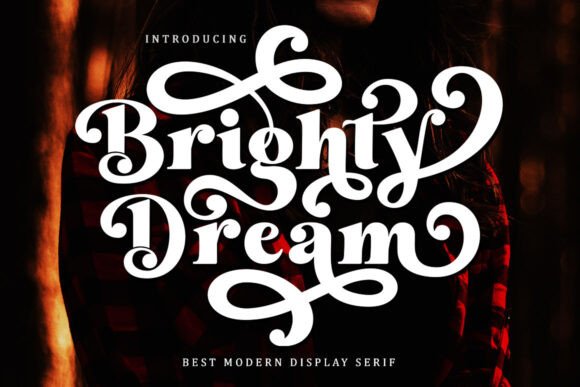
Introducing Brighty Dream Font: Elevate Your Designs with Elegance and Playfulness
In the world of typography, a font can make or break a design. A well-chosen font can elevate your project, adding a touch of sophistication, elegance, and personality. If you’re looking for a typeface that embodies these qualities, look no further than Brighty Dream Font. This stunning serif typeface is designed to make your designs stand out, offering a perfect blend of regular and condensed styles, alternates, and ligatures.
What Makes Brighty Dream Font Special?
Brighty Dream Font is a versatile typeface that boasts a unique combination of characteristics, making it an excellent choice for various design projects. Here are some of its standout features:
- Serif Elegance: Brighty Dream Font is a serif typeface, which means it features small lines or flourishes at the ends of the letters. This adds a level of sophistication and elegance to your designs, making it perfect for projects that require a touch of refinement.
- Regular and Condensed Styles: The font comes in both regular and condensed styles, allowing you to choose the perfect variation for your design. The regular style is great for large headings, while the condensed style is ideal for smaller text or when you need to fit more content in a limited space.
- Alternates and Ligatures: Brighty Dream Font includes alternates and ligatures, which add a playful touch to your designs. Alternates provide alternative forms of letters, while ligatures combine two or more letters into a single glyph, creating a unique and artistic look.
Perfect for Pop Art Retro Themes and More
Brighty Dream Font is particularly well-suited for pop art retro themes, adding a nostalgic touch to your designs. The font’s elegant and playful characteristics make it an excellent choice for:
- Posters and Flyers: Create eye-catching posters and flyers with Brighty Dream Font, adding a touch of sophistication and playfulness to your designs.
- Logos and Branding: Use Brighty Dream Font to create a unique and memorable logo for your brand, setting you apart from the competition.
- Packaging and Advertising: Add a touch of elegance and playfulness to your packaging and advertising materials with Brighty Dream Font.
Why Choose Brighty Dream Font?
With so many fonts available, why choose Brighty Dream Font? Here are just a few reasons:
- Unique and Versatile: Brighty Dream Font offers a unique combination of serif elegance, regular and condensed styles, alternates, and ligatures, making it a versatile choice for various design projects.
- Elegant and Playful: The font’s elegant characteristics make it perfect for projects that require sophistication, while its playful touch adds a fun and artistic vibe.
- Easy to Read: Brighty Dream Font is designed to be easy to read, both in large and small sizes, making it perfect for body text and headings.
Tips for Using Brighty Dream Font
To get the most out of Brighty Dream Font, here are some tips to keep in mind:
- Mix and Match: Experiment with different styles, sizes, and colors to create a unique look that showcases the font’s versatility.
- Use Alternates and Ligatures: Take advantage of the font’s alternates and ligatures to add a playful touch to your designs.
- Pair with Other Fonts: Brighty Dream Font pairs well with other fonts, so don’t be afraid to experiment with different combinations to create a unique look.
| Font Name | Brighty Dream Font |
| Author | Mastertype |
Brighty Dream Font is a stunning serif typeface that offers a perfect blend of elegance and playfulness. With its unique combination of regular and condensed styles, alternates, and ligatures, this font is perfect for designers looking to elevate their projects. Whether you’re working on a pop art retro theme or another design project, Brighty Dream Font is an excellent choice. So why wait? Download Brighty Dream Font today and take your designs to the next level!